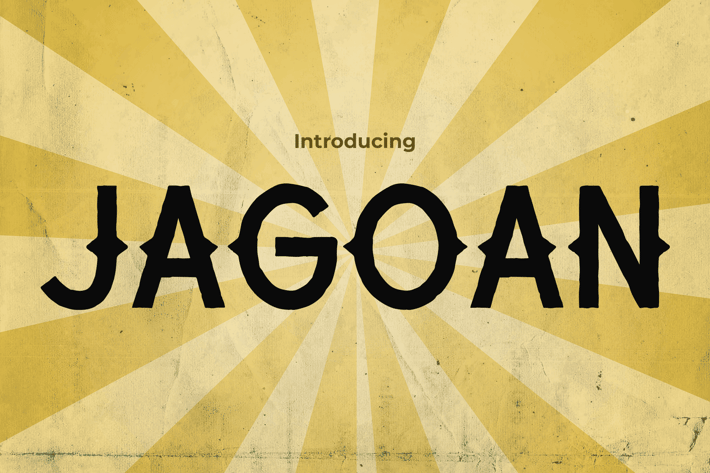
Jagoan - Spirit of the Cowboy Font
Jagoan- Urban Vintage
JAGOAN is a retro-inspired display typeface designed for creators who want punchy, playful energy in their titles. With thick rounded strokes, irregular width, and a slightly wobbly baseline, it evokes the boldness of comic books and vintage posters without losing its modern usability. The font’s animated, expressive look makes it feel both nostalgic and youthful—perfect for grabbing attention with a smile.
Whether you're designing children's book covers, café branding, indie product packaging, or event posters, JAGOAN brings loud character and warm retro vibes. It’s ideal for storytellers, illustrators, and marketers who need an eye-catching typeface with attitude and approachability.
Key Features :
Dynamic Visual Impact
• Heavyweight strokes and playful alignment
• Loosely geometric with vintage comic undertones
• Great for short words, headlines, and logo lockups
Versatile Use Cases
• Fun branding projects, food/beverage labels
• Youth magazine titles, character illustrations
• Posters, event flyers, and retro signage